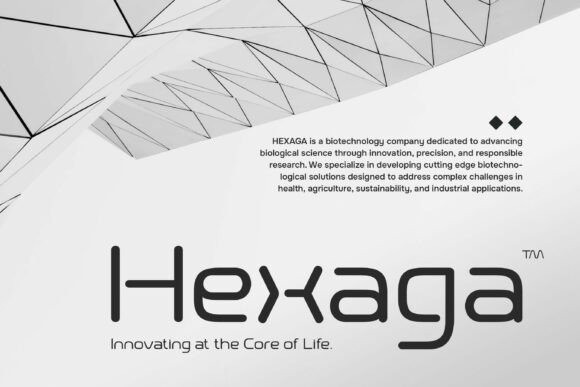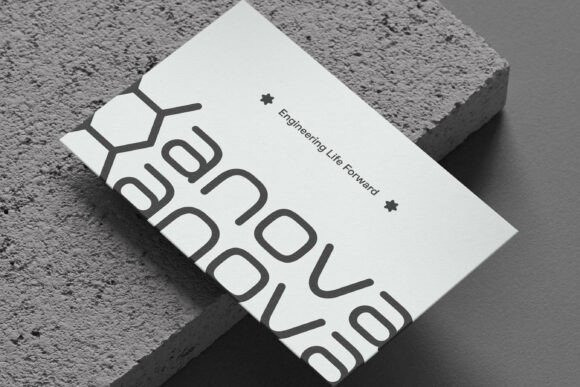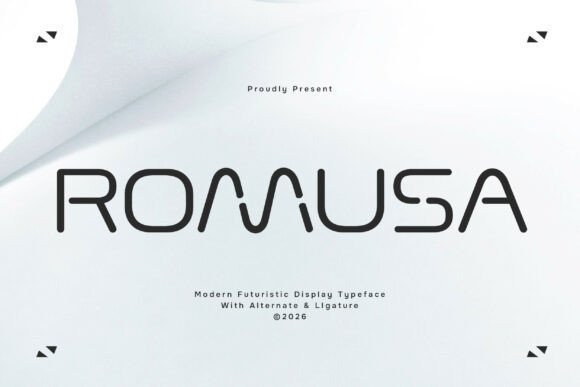
Romusa Font
Romusa Font is a modern futuristic display font designed to bring an innovative, and cutting-edge look to your designs. Featuring sharp lines, sleek shapes, and a forward-thinking style, Romusa captures the spirit of futuristic typography while maintaining a clean and modern structure.